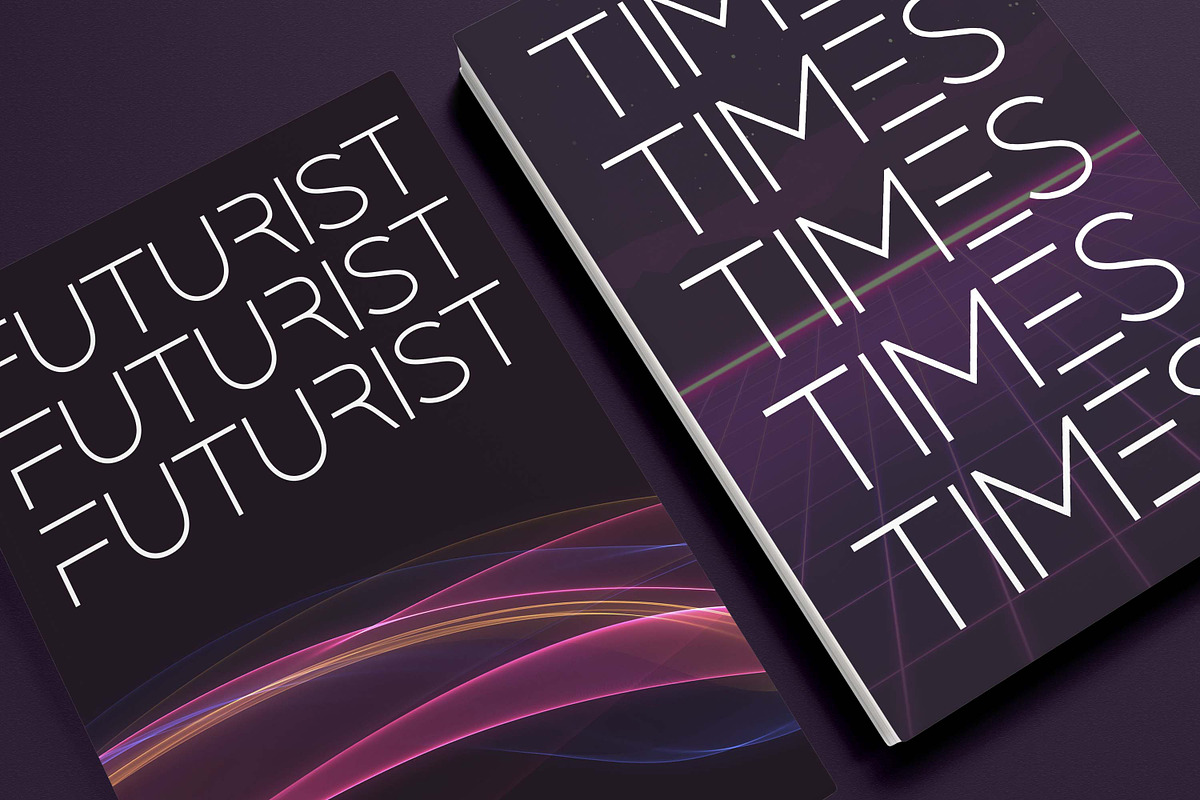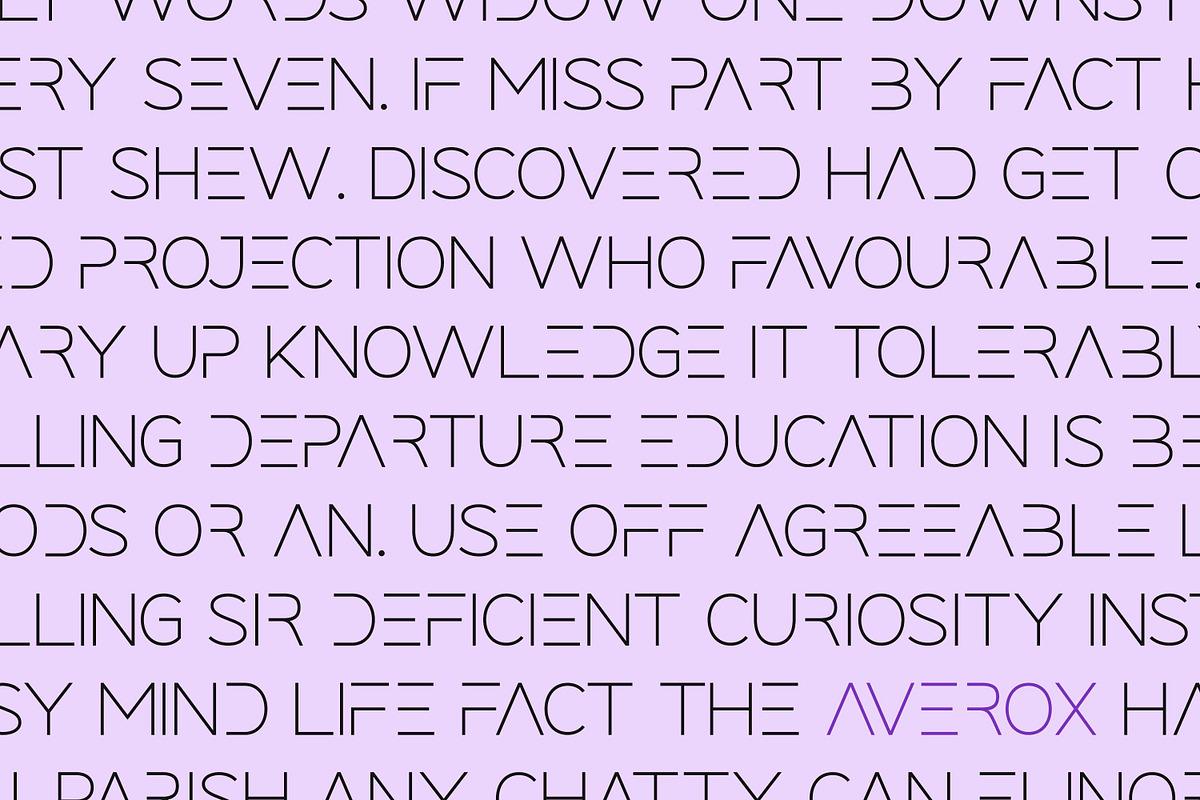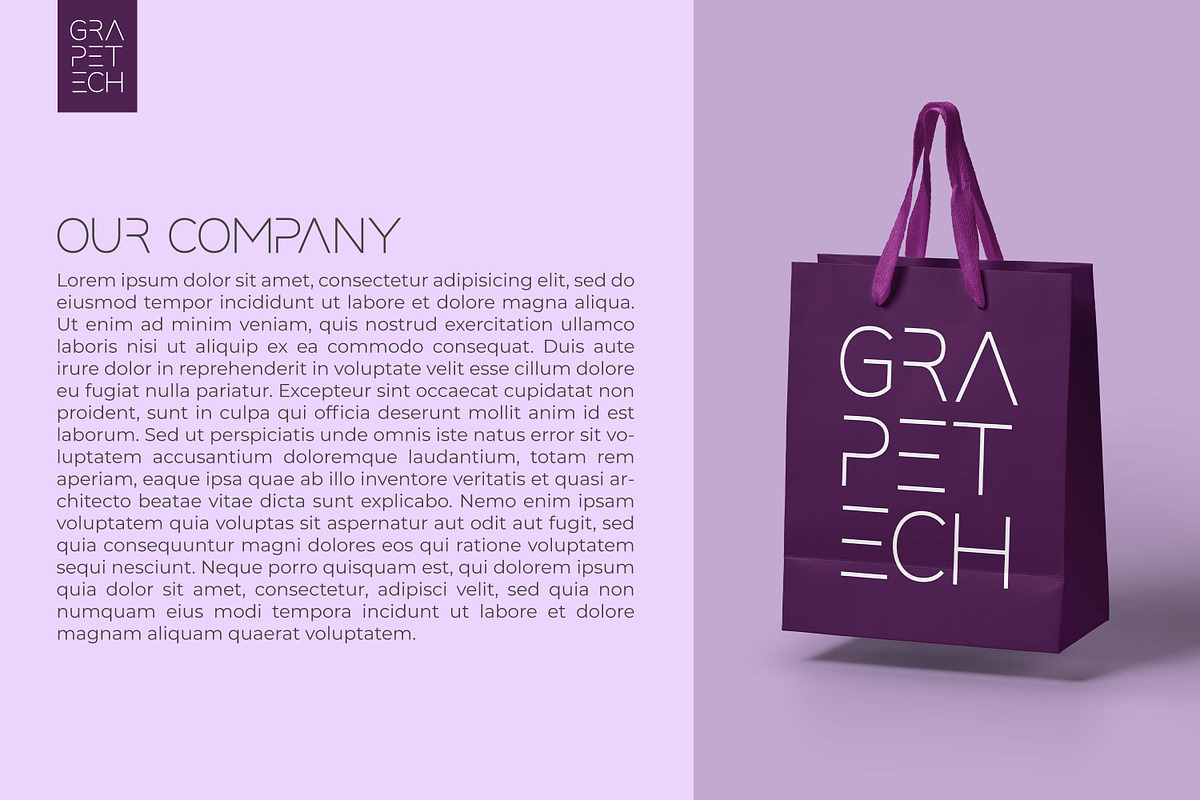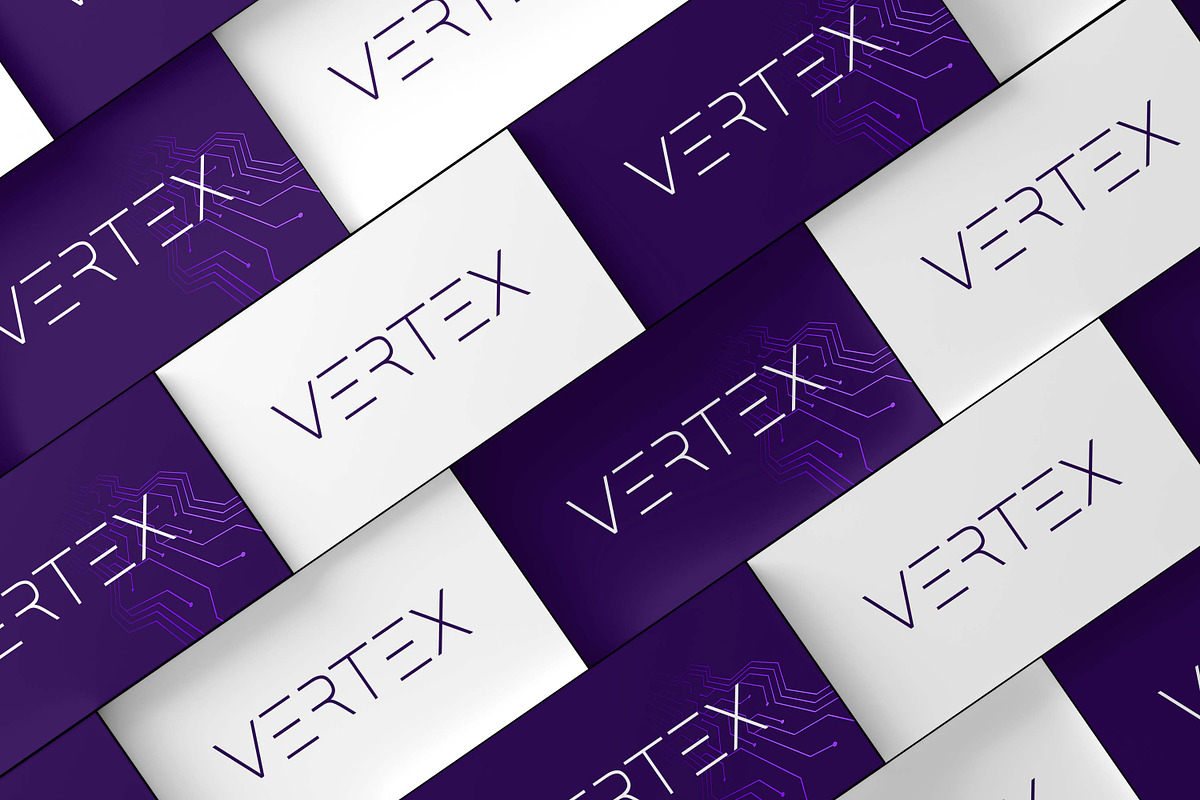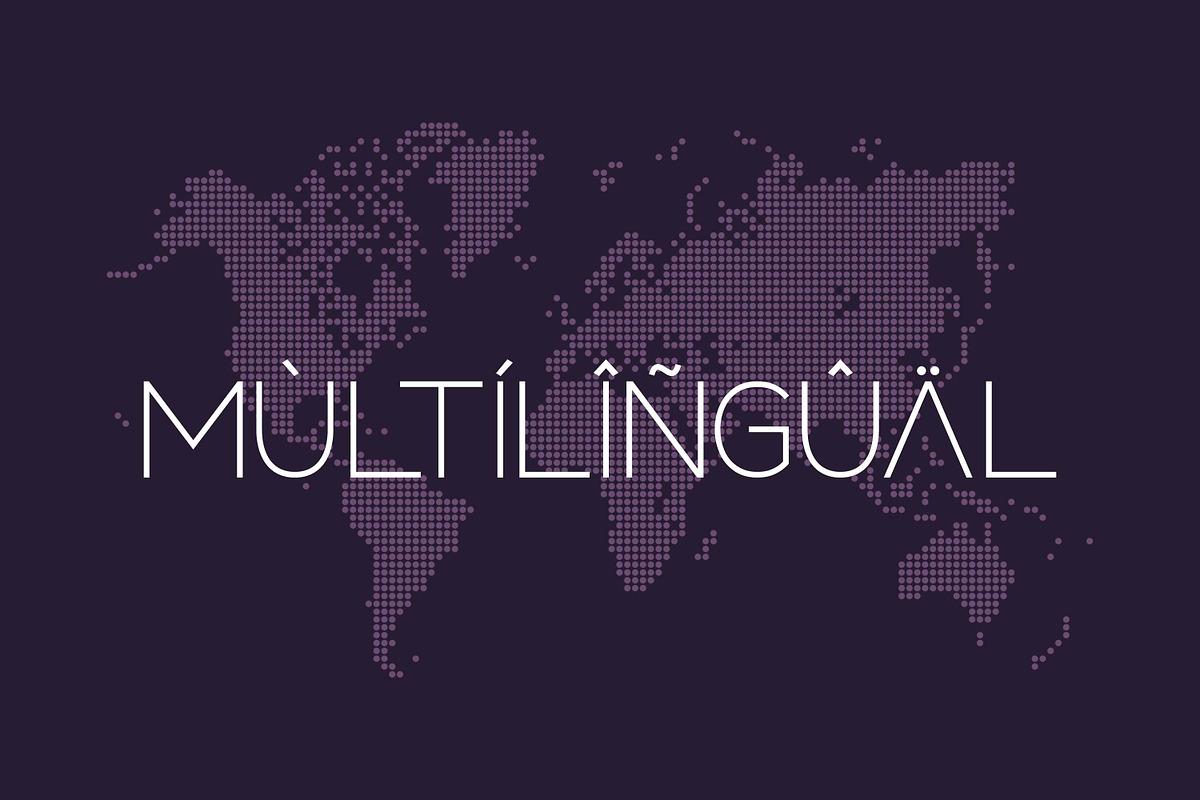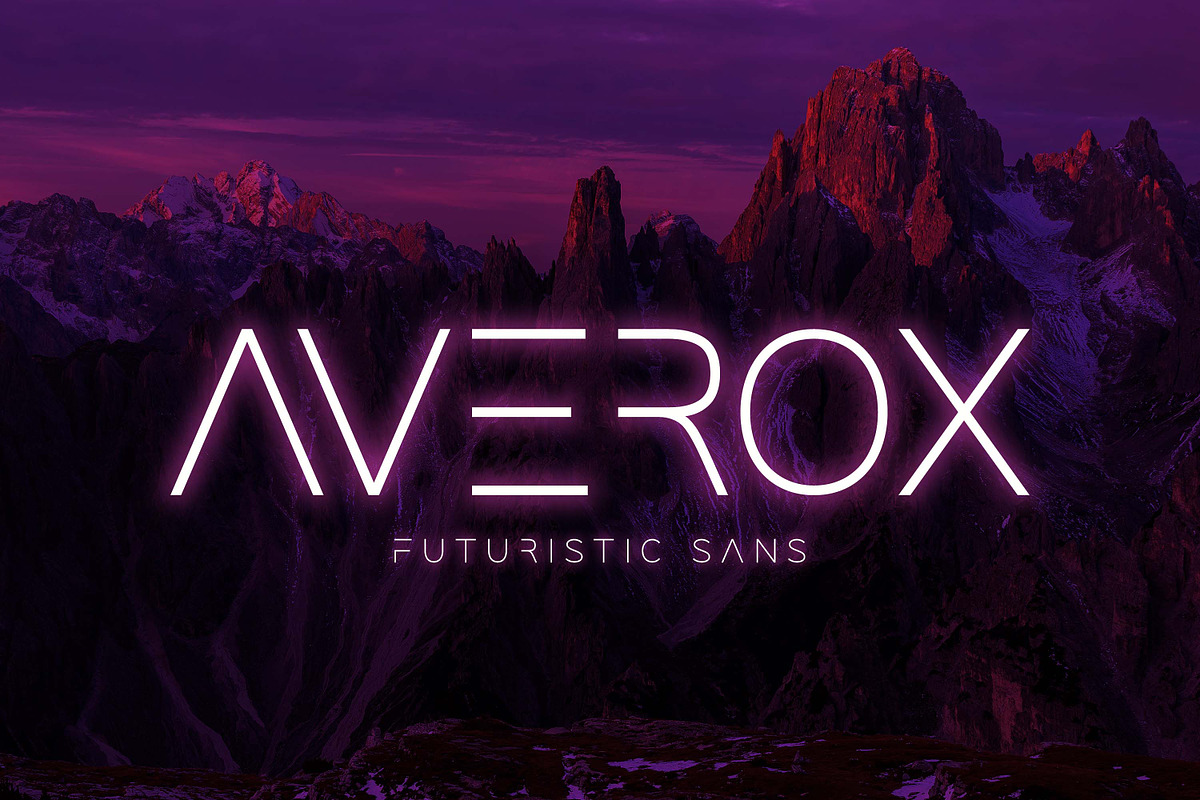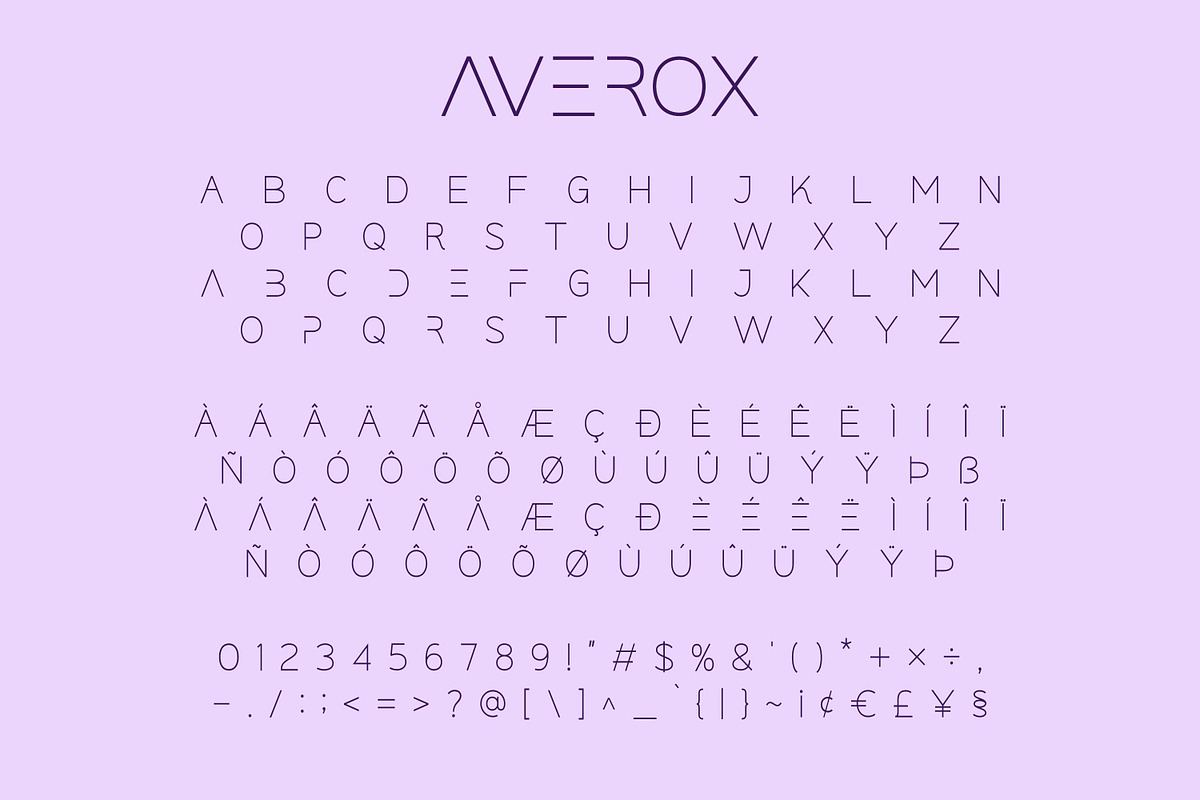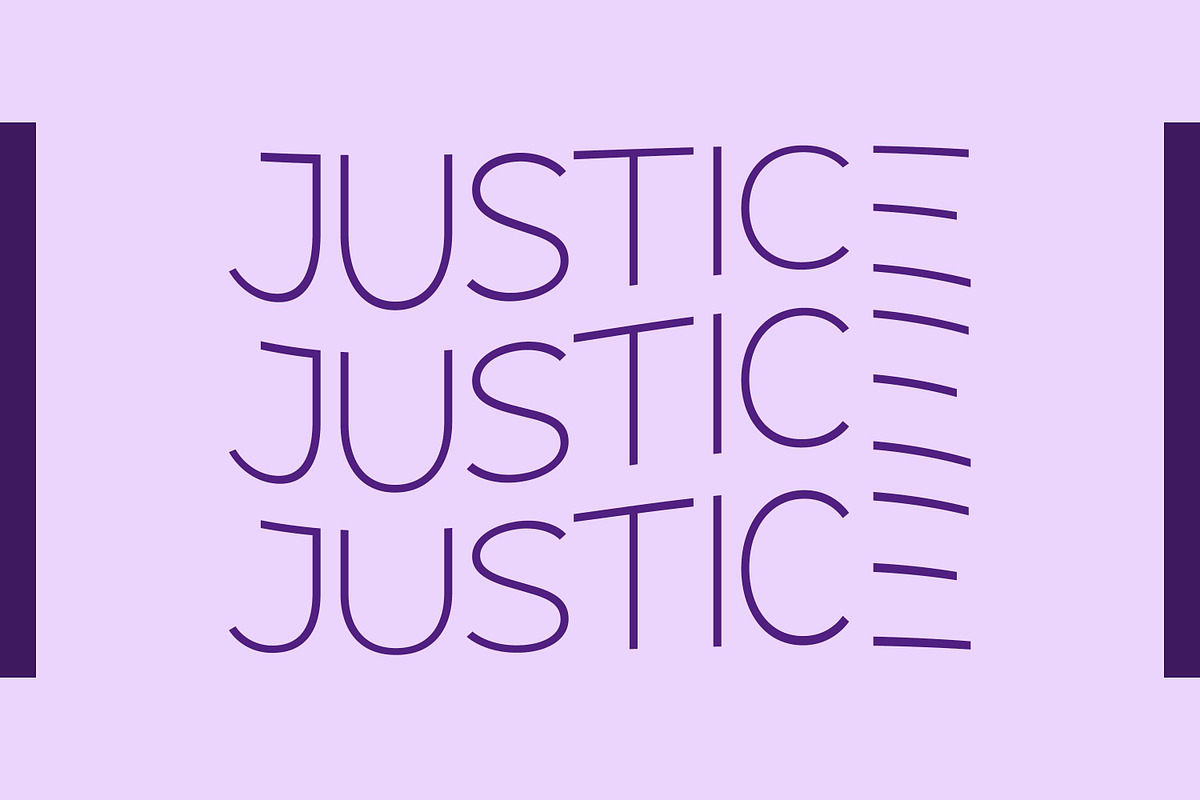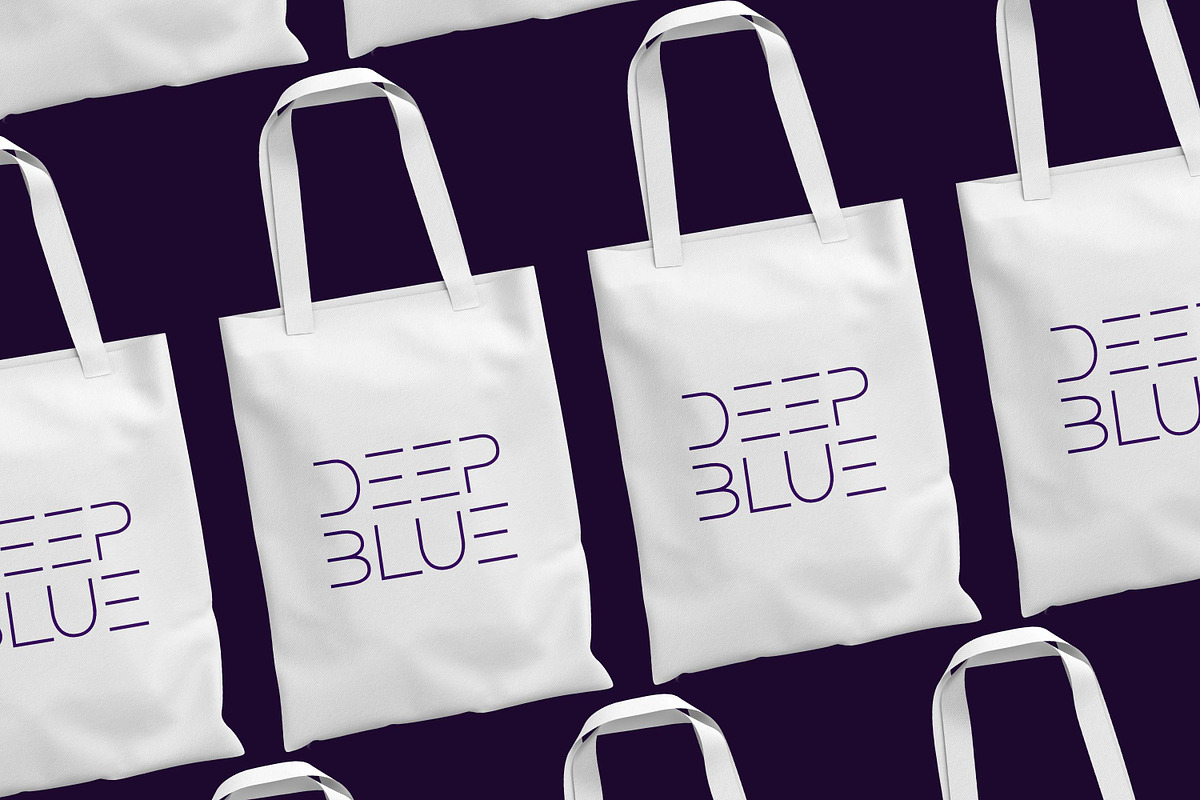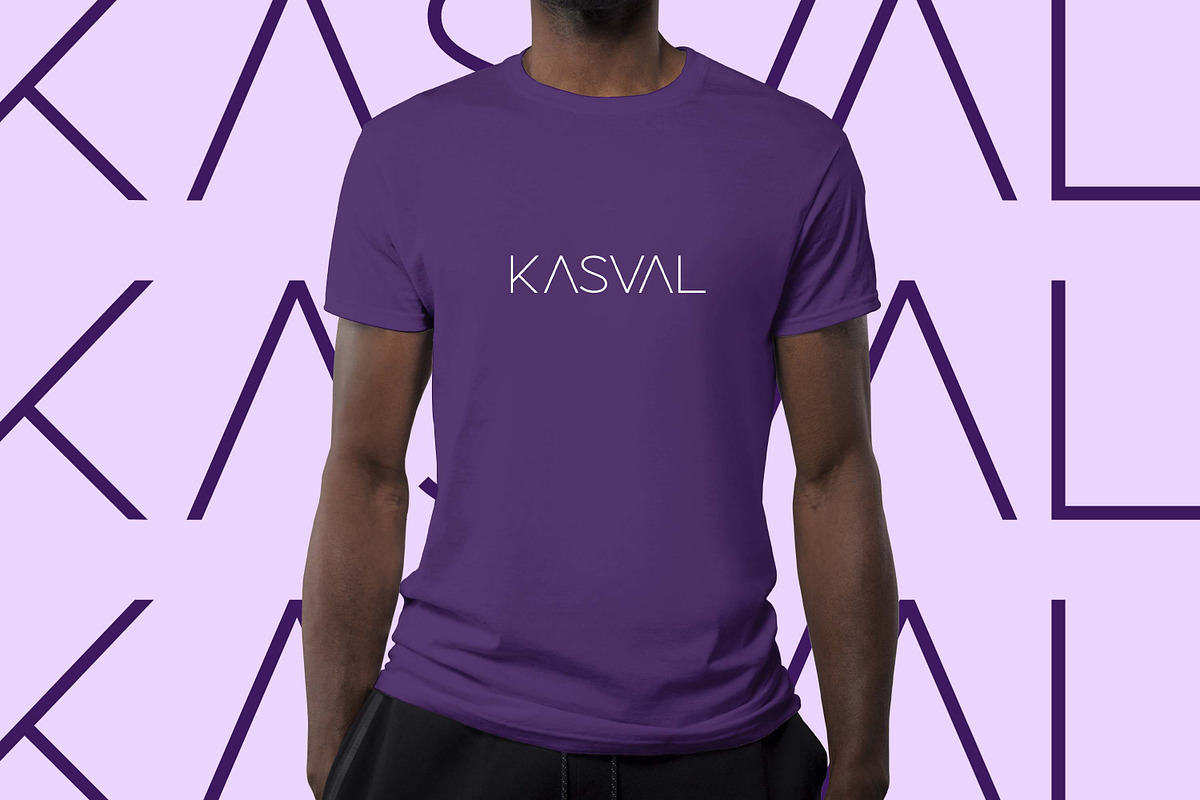
AVEROX - Futuristic Sans
Introducing averox is a Futuristic Sans font with a stylish touch inspired by the famous minimalist logo and averox is perfect for the purposes of designing templates, brochures, videos, advertising branding, logos and more.
- Multilingual Accent